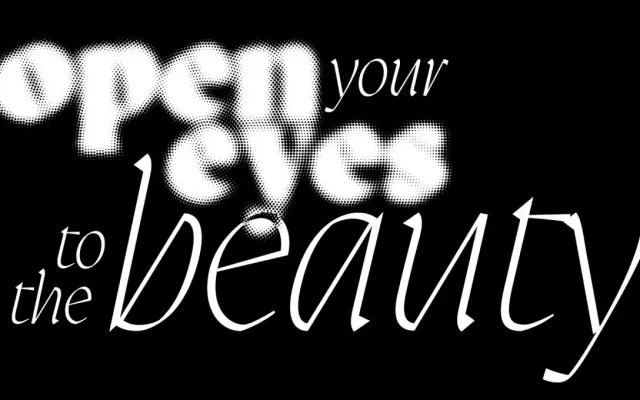
Auge
Fontfabric · Nikolay Petroussenko, Viktoria Usmanova, Plamen Motev · 2023
A high-contrast serif with wedge serifs drawn from insect morphology, originally a 2017 graduation project by Nikolay Petroussenko and later developed into an 18-style family by Fontfabric.
Begun as a graduation project by Nikolay Petroussenko, Auge takes its formal cues from insect anatomy, translating sharp micro-structural detail into wedge serifs and pronounced stroke contrast. The family spans eight weights from Light to Extrablack with matching italics, plus variable font files for the Roman and Italic axes. Extended Latin and Cyrillic coverage is supported alongside OpenType features including ligatures, oldstyle figures and stylistic alternates, making it workable across editorial, packaging and brand identity contexts.
Auge features high stroke contrast and distinctive wedge serifs drawn from insect morphology, placing it firmly in the high-contrast display serif category rather than a conventional transitional or didone tradition.